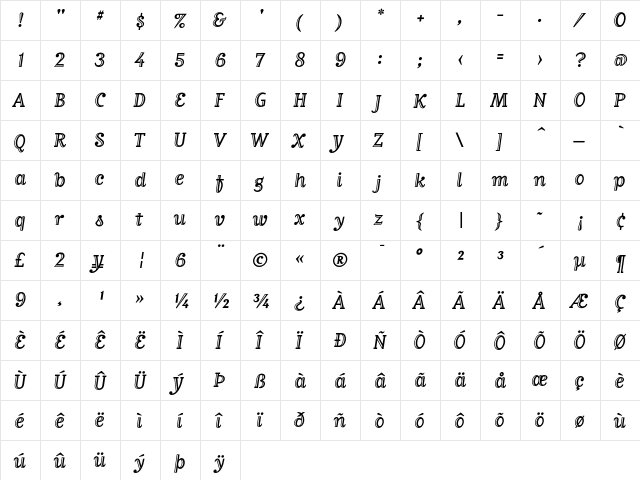
MatrixInlineScriptLining Regular Font Preview
MatrixInlineScriptLining Regular
MatrixInlineScriptLining Regular Font Details
Design Context for MatrixInlineScriptLining Typeface
MatrixInlineScriptLining flows with the natural rhythm of handwritten lettering, making it ideal for designs that call for warmth and personal expression.
Font Pairing: Combine MatrixInlineScriptLining with a simple geometric sans for maximum contrast — the tension between flowing curves and clean structure is a classic typographic pairing.
Pro Tip: Use MatrixInlineScriptLining for short runs of text — names, titles, or taglines. Extended body copy in script faces tires the eye quickly.